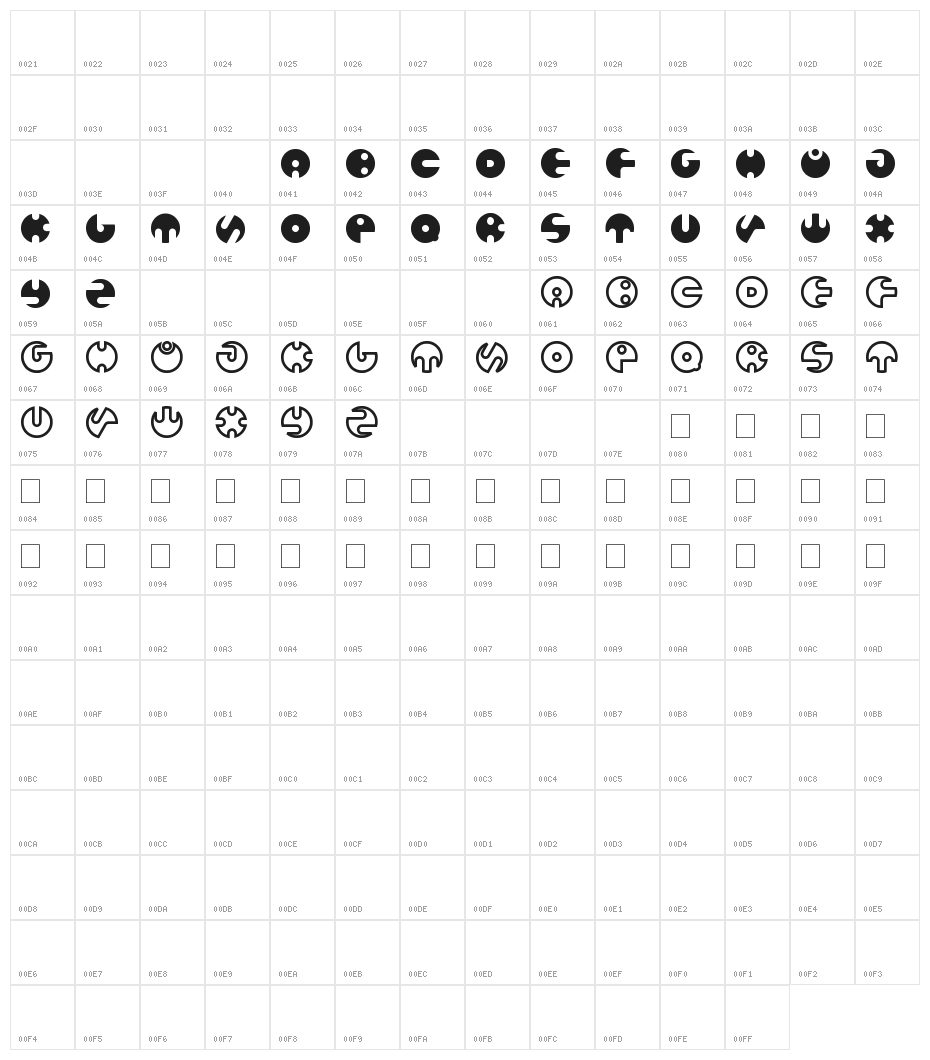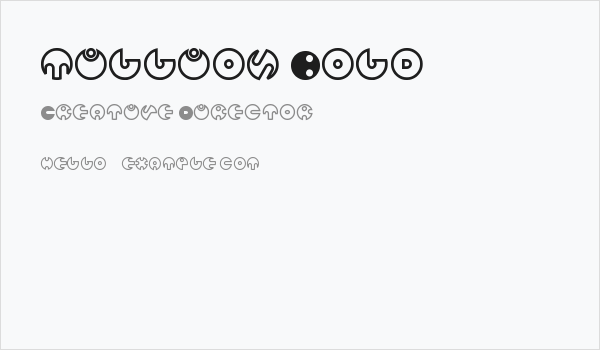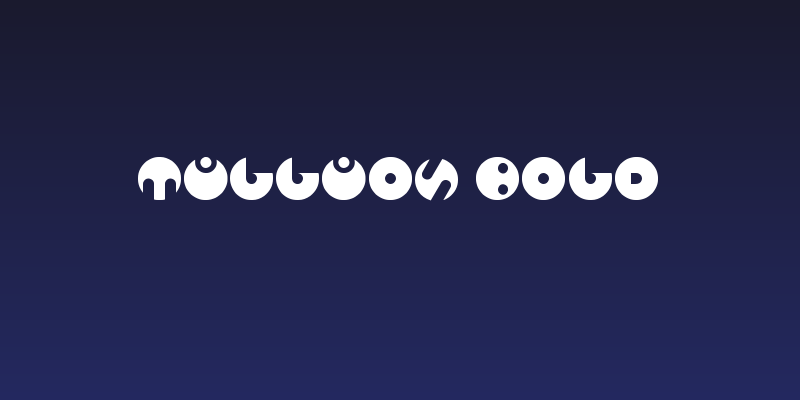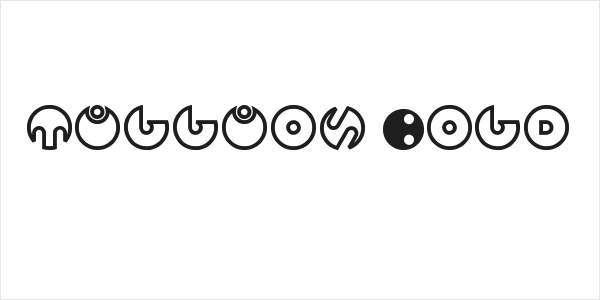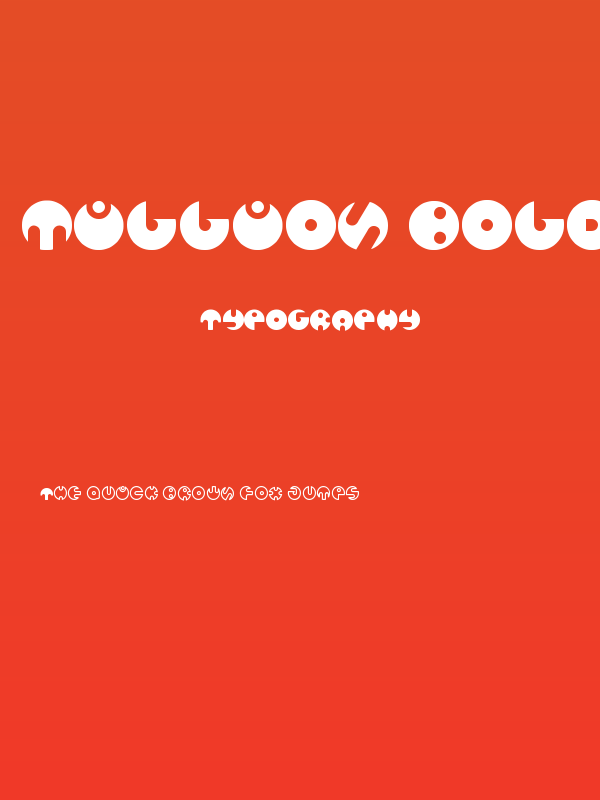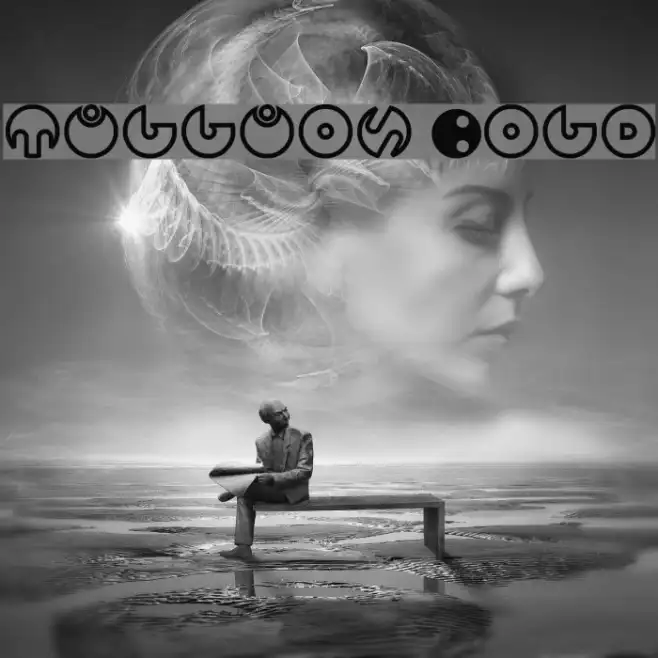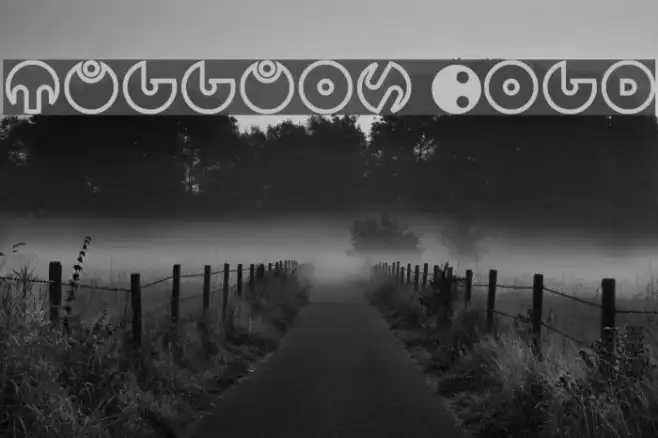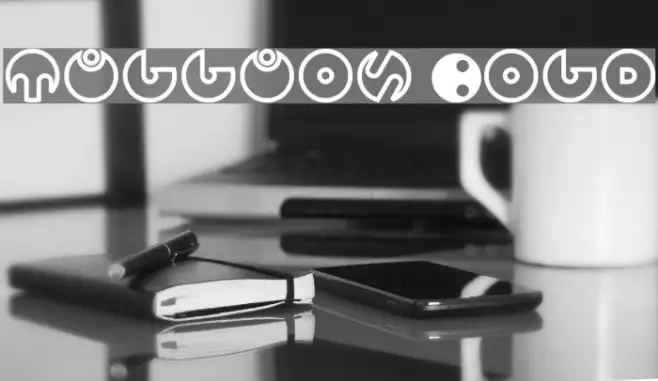
million Bold Font
million Bold Description
This font features a bold, geometric style with circular and semi-circular shapes dominating the design. Each character is crafted with a unique, futuristic aesthetic, incorporating solid and outlined versions that create a striking visual contrast. The uppercase letters are particularly bold, with thick strokes and minimal spacing, while the lowercase letters maintain the same geometric theme but with slightly more open forms. The numbers and special characters follow the same design principles, ensuring consistency across the typeface. This font's distinct appearance makes it ideal for projects that require a modern and innovative look.